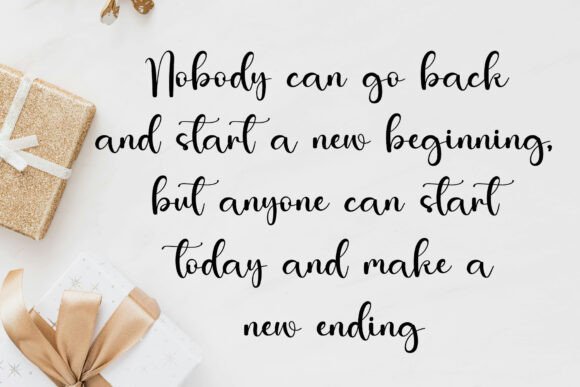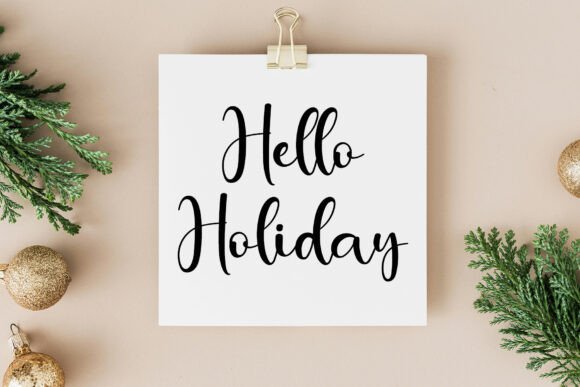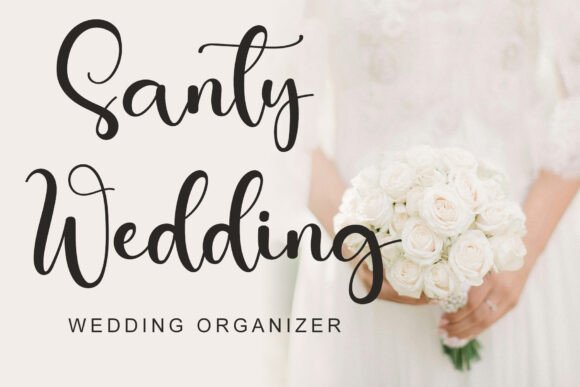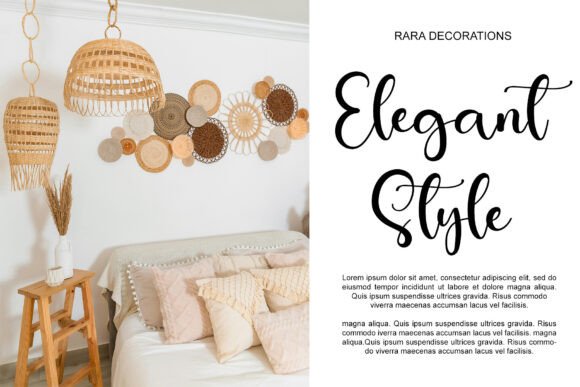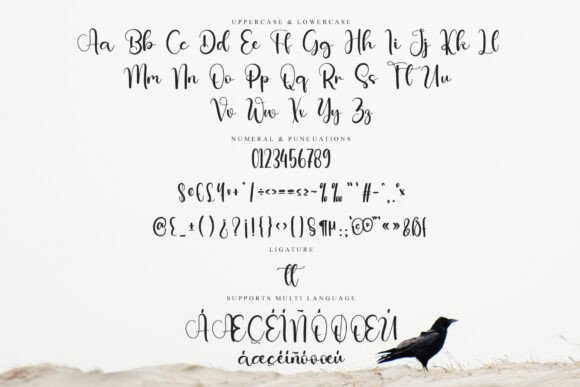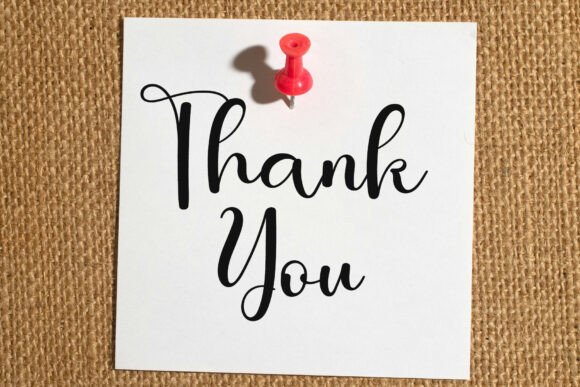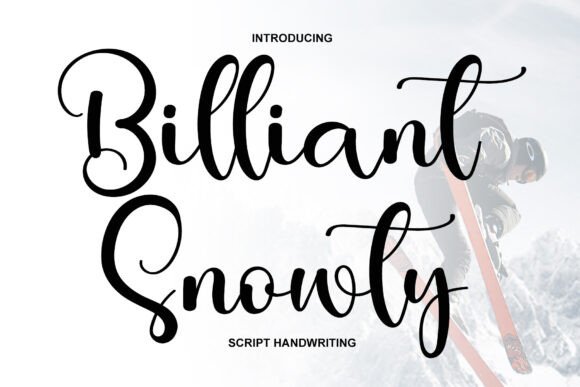
Introducing Brilliant Snowty Font: Add a Touch of Holiday Magic to Your Designs
Are you looking for a font that captures the essence of the holiday season? Do you want to add a touch of magic to your Christmas cards, decorations, and other designs? Look no further than Brilliant Snowty Font, a festive and playful typeface that’s sure to delight. In this article, we’ll explore the features of Brilliant Snowty Font and how you can use it to spread the joy of the season.
A Festive and Playful Typeface
Brilliant Snowty Font is a unique and eye-catching typeface that’s perfect for the holiday season. Its playful and festive design is adorned with enchanting swashes, adding a touch of whimsy to your designs. Whether you’re creating Christmas cards, decorations, or other holiday-themed projects, Brilliant Snowty Font is sure to make them stand out.
One of the best features of Brilliant Snowty Font is that it’s PUA (Private Use Area) encoded. This means that you can access all of the amazing glyphs and ligatures with ease, without having to worry about complicated font editing software. With Brilliant Snowty Font, you can simply type in the characters you want to use, and they’ll appear in your design.
Brilliant Snowty Font is perfect for designers and crafters who want to add a touch of holiday magic to their projects. Whether you’re creating digital designs or handmade crafts, this font is sure to inspire your creativity. Use it to create beautiful Christmas cards, decorations, and other holiday-themed projects that will delight your friends and family.
Ideas for Using Brilliant Snowty Font
So, how can you use Brilliant Snowty Font in your designs? Here are a few ideas to get you started:
- Create beautiful Christmas cards and invitations with custom typography
- Design festive decorations, such as garlands and banners, for your home or office
- Make custom holiday-themed graphics, such as social media posts and blog headers
- Add a touch of magic to your digital designs, such as e-books and presentations
- Use Brilliant Snowty Font to create handmade crafts, such as scrapbook pages and DIY gifts
Tips for Getting the Most Out of Brilliant Snowty Font
To get the most out of Brilliant Snowty Font, here are a few tips:
- Experiment with different font sizes and colors to create a unique look
- Use the swashes and glyphs to add a touch of whimsy to your designs
- Combine Brilliant Snowty Font with other fonts to create a unique and eye-catching look
- Don’t be afraid to get creative and try new things – Brilliant Snowty Font is designed to inspire your creativity!
Key Features of Brilliant Snowty Font
- Festive and playful typeface
- Enchanting swashes and glyphs
- PUA encoded for easy access
- Perfect for Christmas cards, decorations, and other holiday-themed projects
- Inspires creativity and whimsy